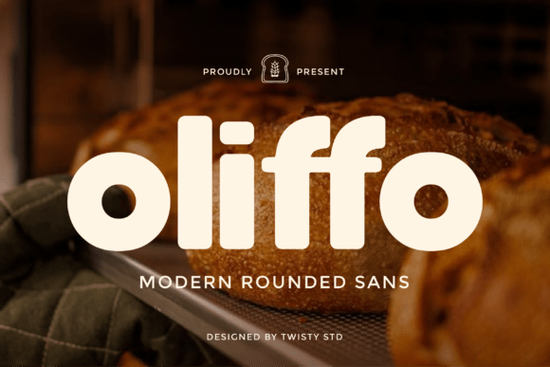
If you’ve been looking for a sans serif font that feels like a warm hug, Oliffo might be exactly what your next project needs. It’s got those soft, rounded edges that make headlines feel friendly without losing their modern edge perfect for logos, packaging, social media graphics, or even kids’ products. Whether you’re designing merch for Etsy, branding a small café, or just playing around with personal projects, Oliffo brings a gentle personality that doesn’t shout but still stands out.
What kind of projects work best with Oliffo?
You’ll find Oliffo shines in places where tone matters as much as type. Think:
- Branding for wellness studios yoga studios, spas, or mental health coaches who want to feel approachable.
- Kids’ products birthday invites, educational materials, or baby clothing tags.
- Food and beverage labels coffee bags, bakery packaging, or juice bottles that need charm without clutter.
- Social media templates quotes, announcements, or Reels overlays that feel human and inviting.
It’s not the kind of font you’d use for corporate annual reports, but if your goal is connection over formality, Oliffo fits right in. And if you’re comparing options, you might also like browsing Mismatched Socks for something more whimsical, or Okaybro if you want casual with a bit more edge.
Does it come with extra features or weights?
Yes and this is where Oliffo becomes really useful for real-world design. You get multiple weights (usually light, regular, bold), which means you can build hierarchy without switching fonts. That’s a big win when you’re laying out a product page or a multi-slide Instagram carousel. Some versions even include stylistic alternates or ligatures, so you can tweak certain letters for extra flair without breaking the flow.
The spacing is generous but not loose, making it readable even at smaller sizes. That’s helpful if you’re printing on tags, stickers, or mugs where space is tight. And because it’s a sans serif, you won’t run into legibility issues on screens or low-res prints.
Is Oliffo good for print-on-demand sellers?
Absolutely. If you sell on platforms like Redbubble, Teespring, or Etsy, Oliffo gives your designs a cohesive, boutique feel without needing heavy illustration or complex layouts. A simple phrase like “Good Vibes Only” or “Made With Love” looks instantly polished in Oliffo no extra filters or effects required.
Plus, rounded fonts like this tend to photograph well. They don’t create visual noise in product mockups, and customers respond to the subconscious friendliness. You’re not just selling a t-shirt you’re selling a feeling. Oliffo helps you do that quietly and effectively.
How does it pair with other fonts?
Surprisingly well. Because it’s clean and neutral in structure (despite its personality), Oliffo plays nicely with almost anything. Try pairing it with:
- A thin serif for contrast great for luxury or artisanal brands.
- A handwritten script if you want to add warmth without going overboard.
- A monospace font for techy or minimalist vibes yes, really. The roundness softens the rigidity.
Just avoid pairing it with another rounded sans unless you’re going for intentional repetition. Too many curves can muddy your message.
Any tips for using Oliffo without overdoing it?
Here’s the thing: friendly fonts can tip into childish if you’re not careful. To keep Oliffo feeling fresh and grown-up:
- Use bold weights sparingly. They’re great for impact but can feel cartoony if overused.
- Stick to short phrases. Long paragraphs in ultra-rounded fonts tire the eye.
- Pair with neutral colors. Let the shape do the talking avoid neon combos unless irony is your goal.
- Test readability at small sizes. Rounded terminals can blur together; zoom out before finalizing.
If you answered yes to any of those, Oliffo’s probably worth a spot in your font folder. It’s not flashy, but sometimes the quiet fonts are the ones that stick with people longest.